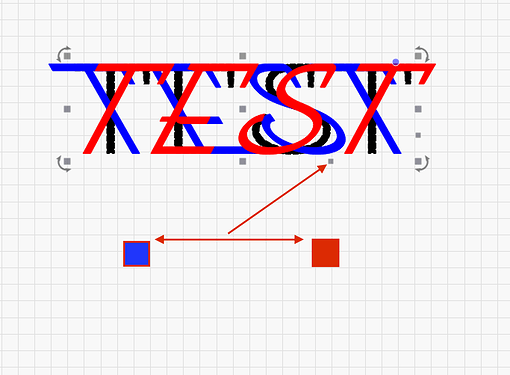
Anyone know how to create left or right leaning font ?
Something like reverse italics ?
You could try this.
Create your text, go back to select arrow and select text and grab this handle.
Change the text to look like this.
Grab this handle and turn it back to horizontal.
That what you are hoping for? I have not seen a reverse italic selection in lightburn.
If you use the second small dot, there is no need to correct afterwards
That works better. Now why is your dots vertically flipped compared to mine??? Not that it matters.
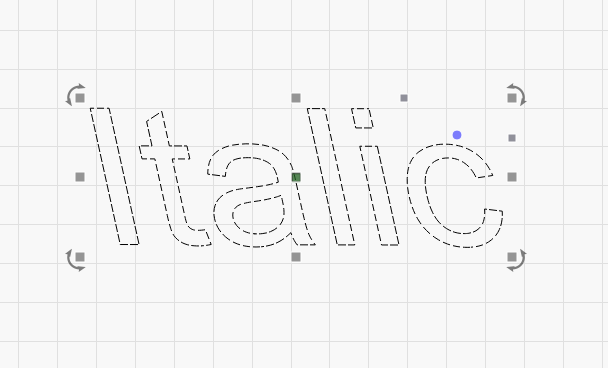
My origin is top left, that’s the only explanation I have. If I try to change it to the bottom left, they change the control buttons.